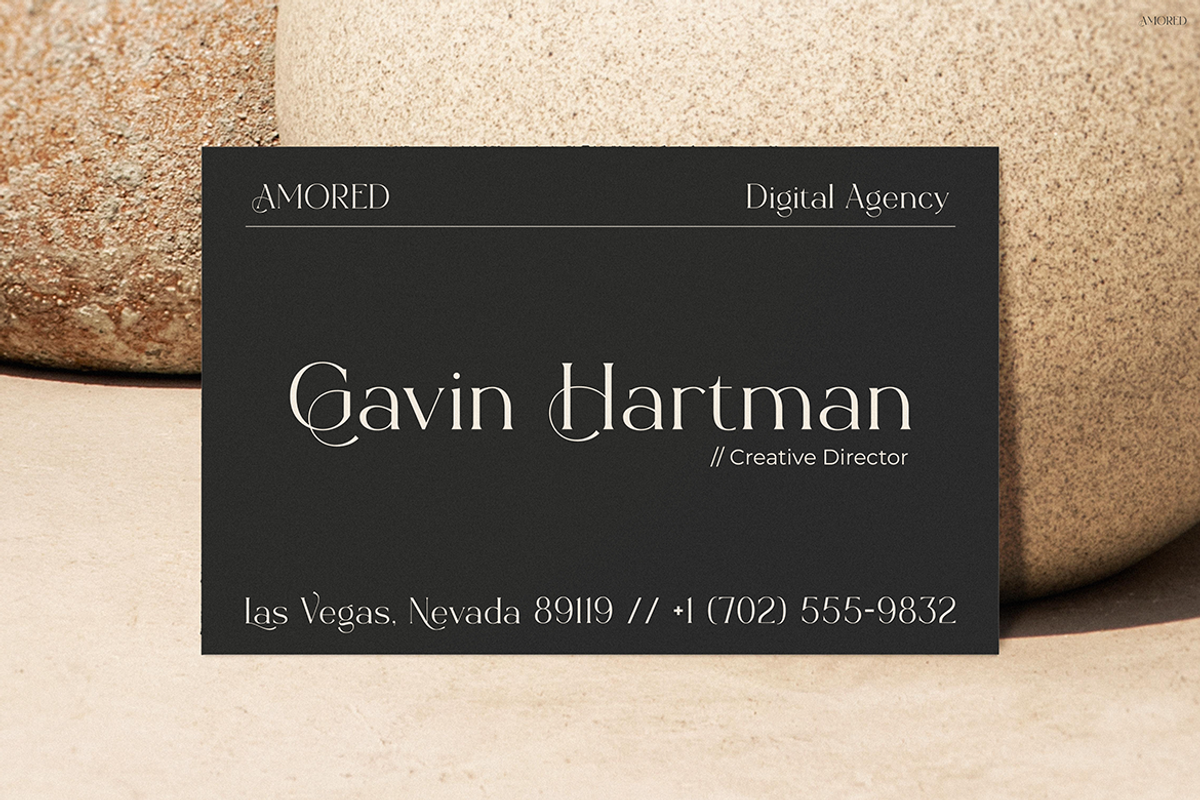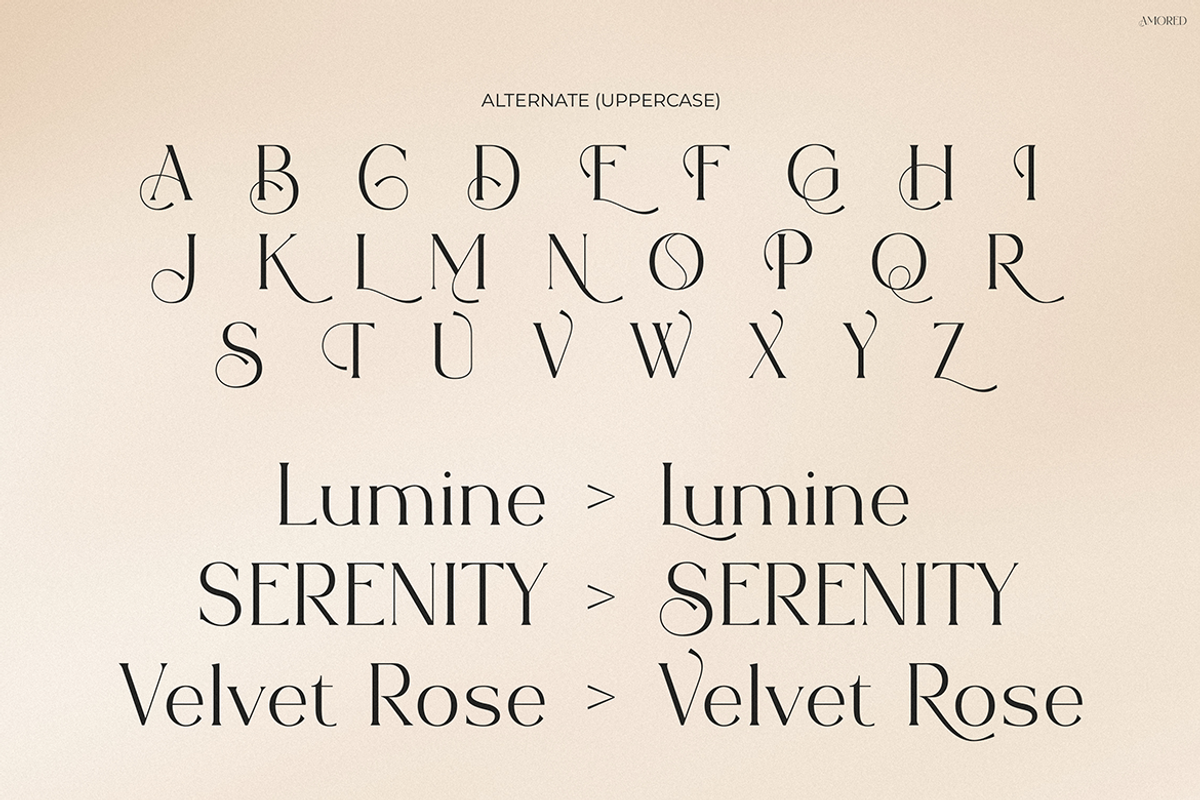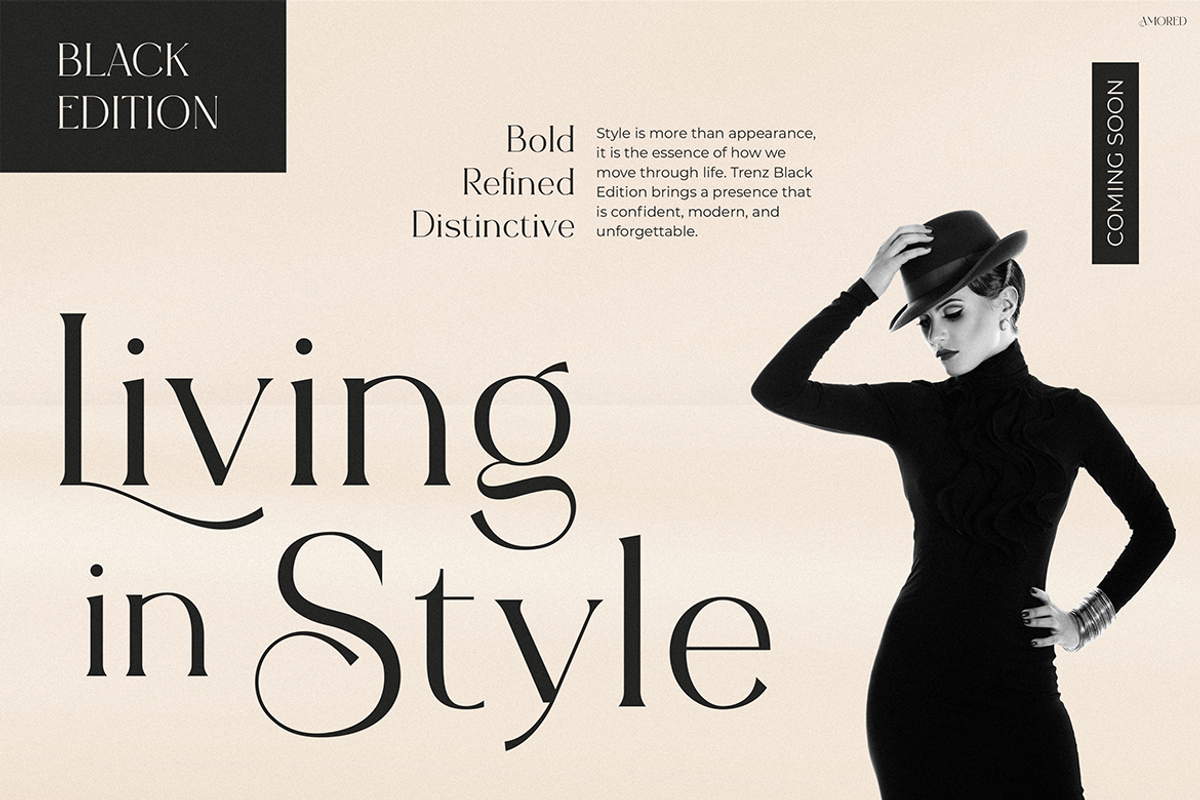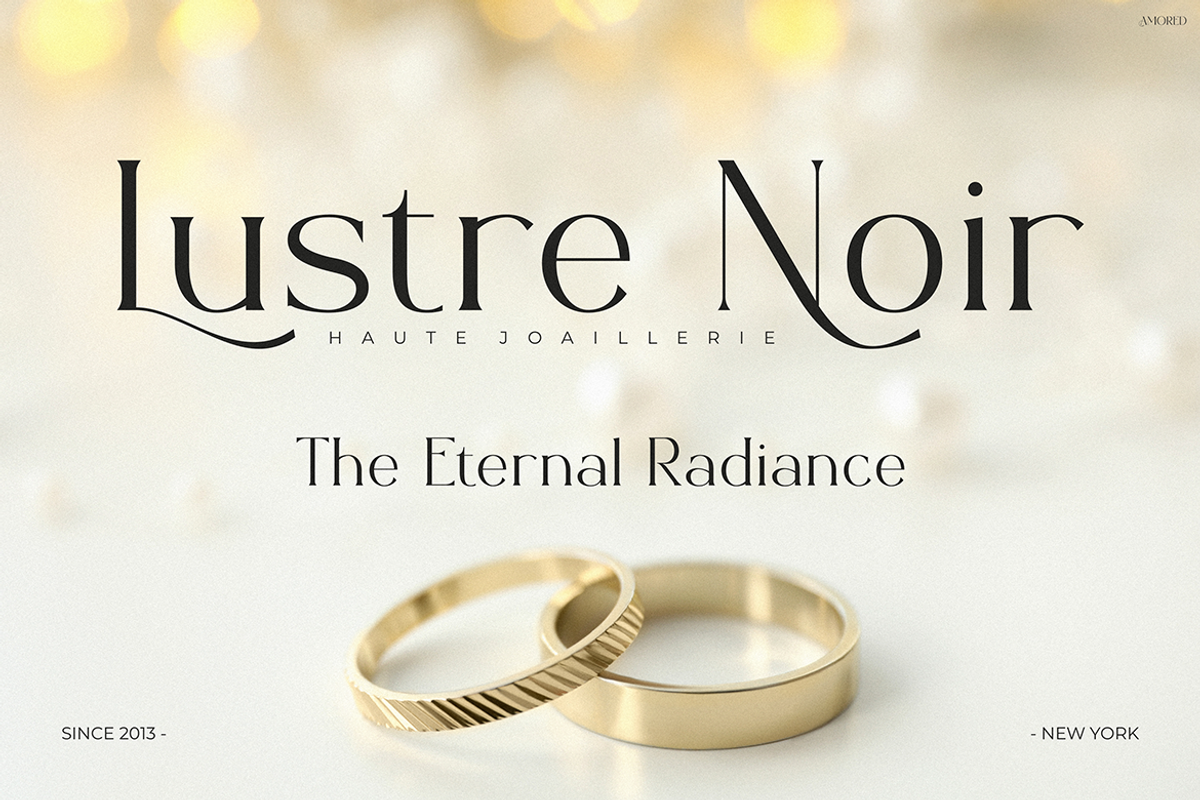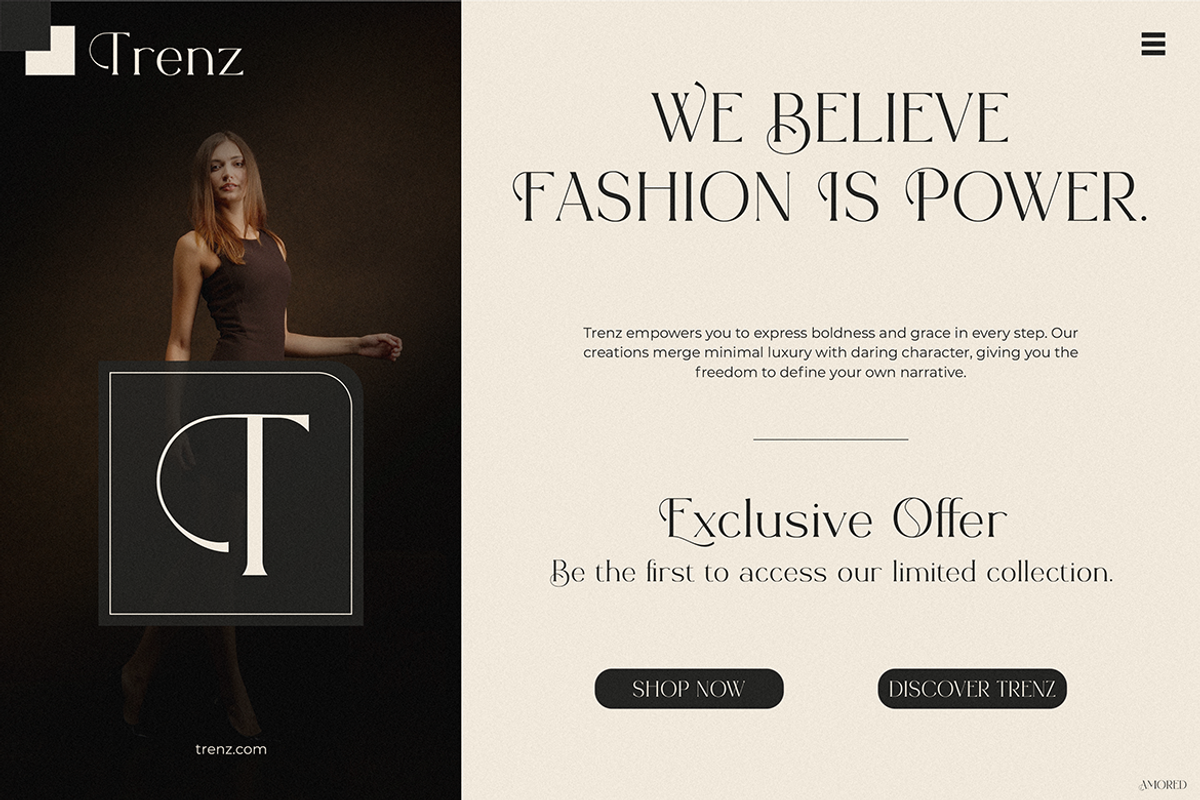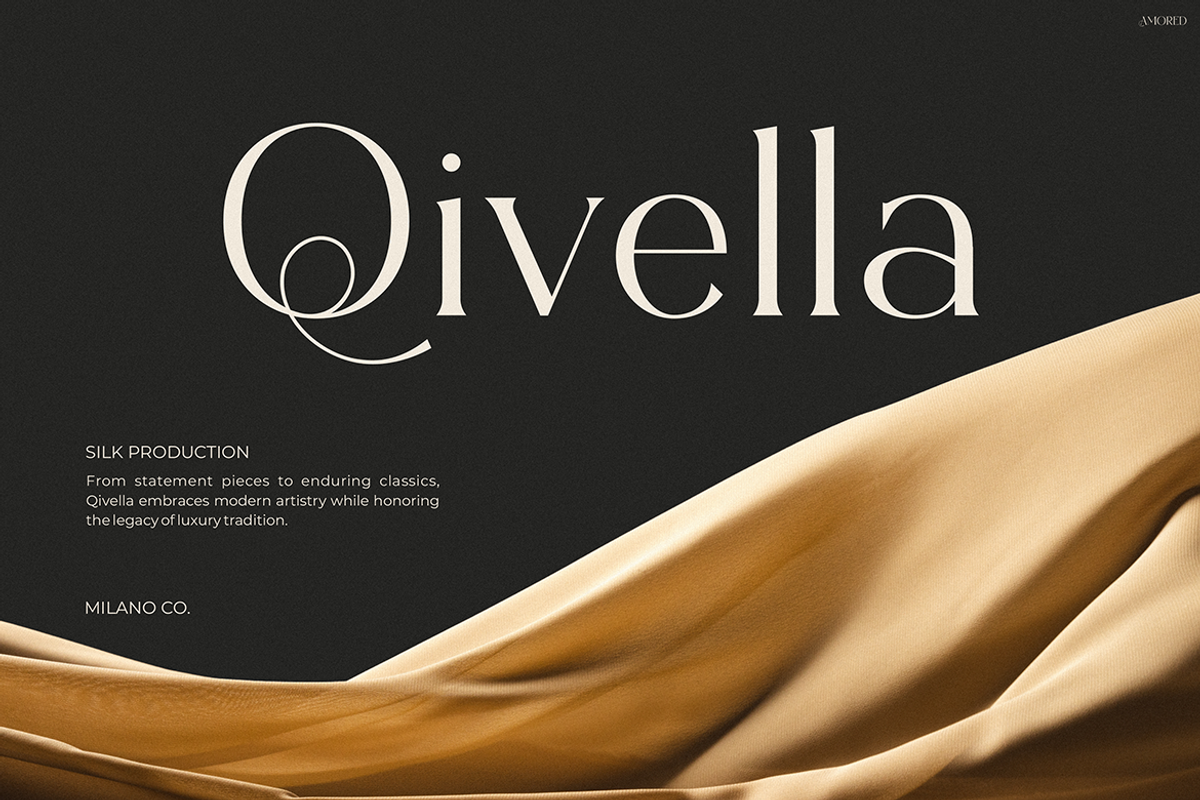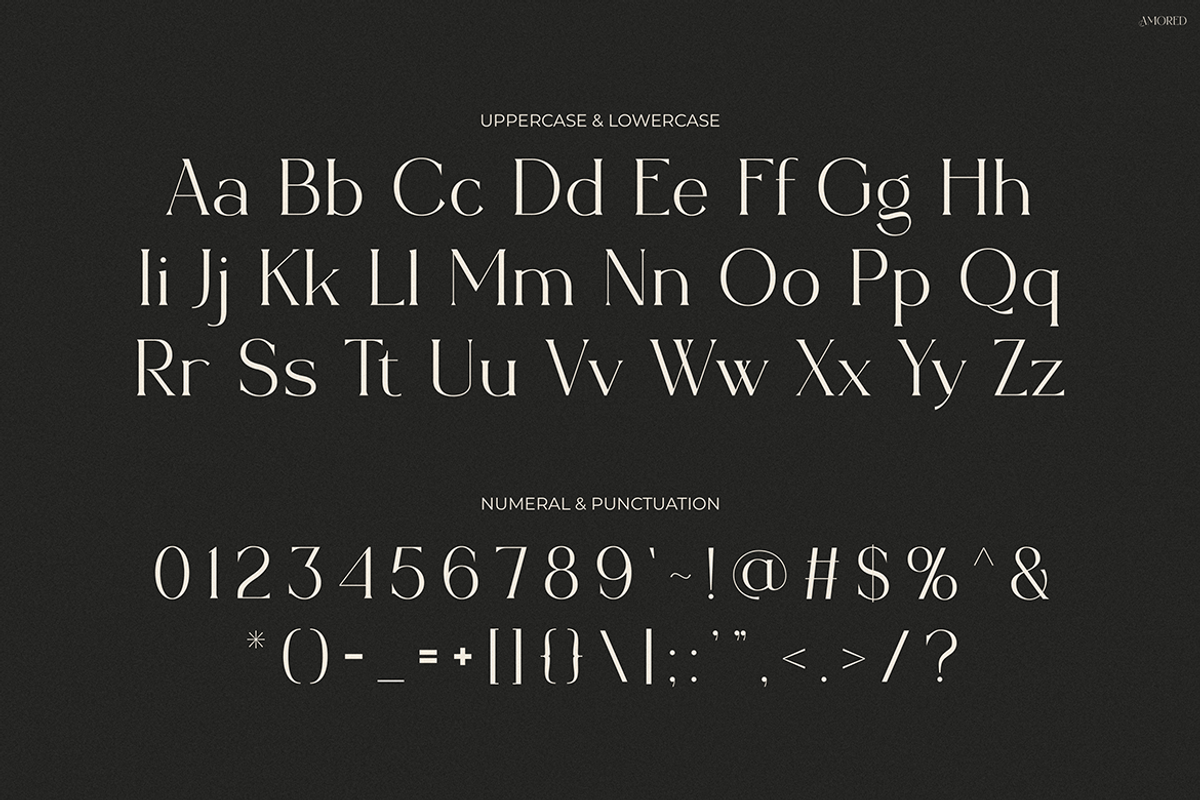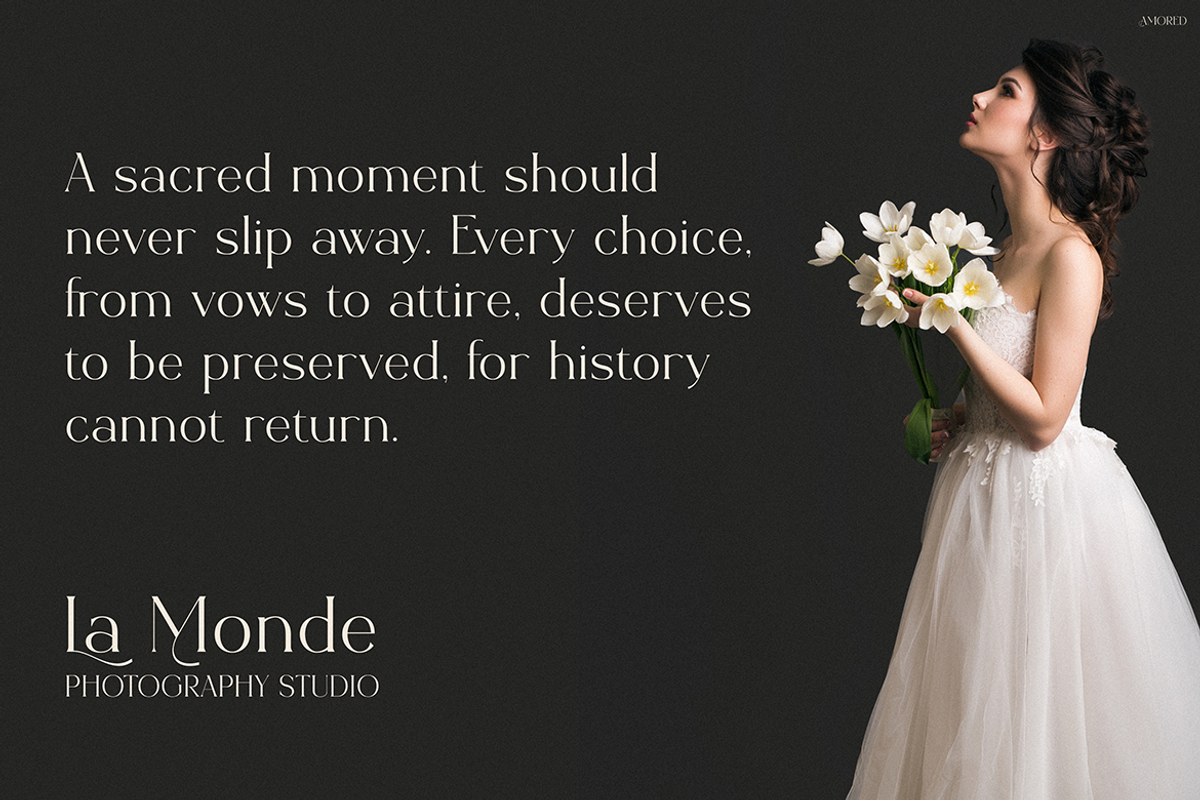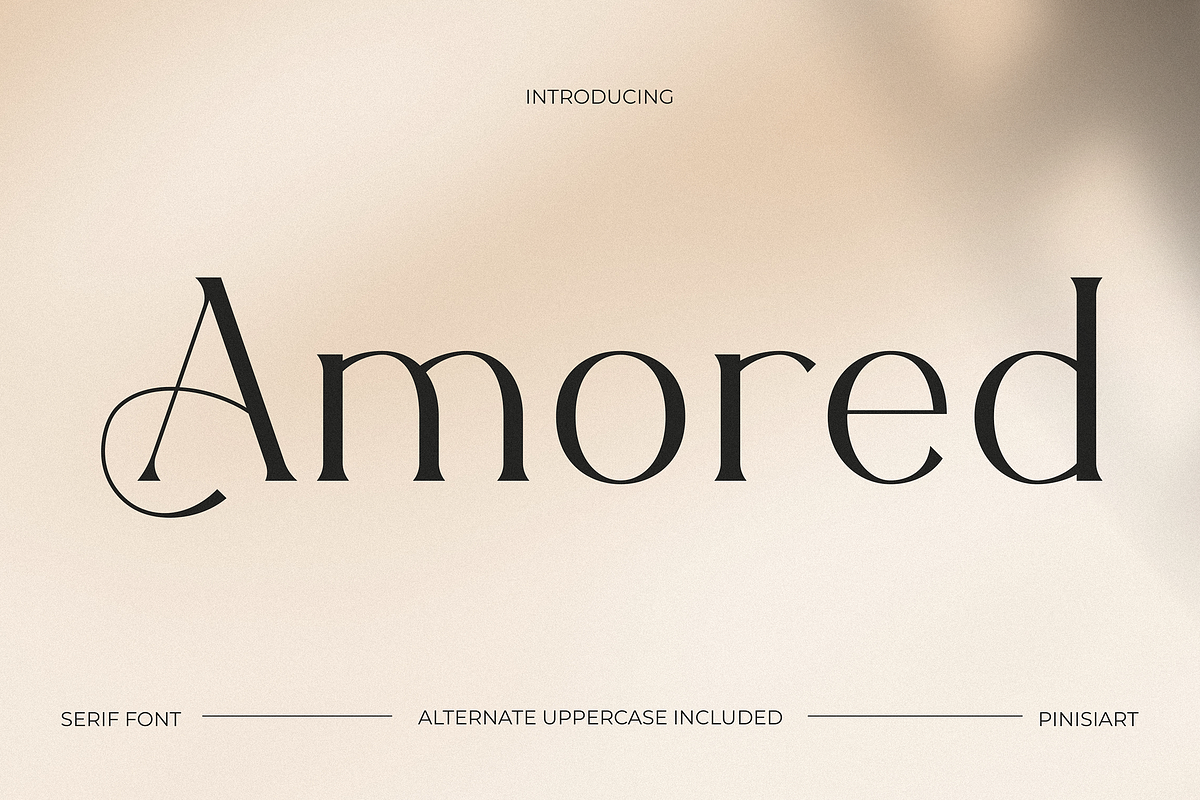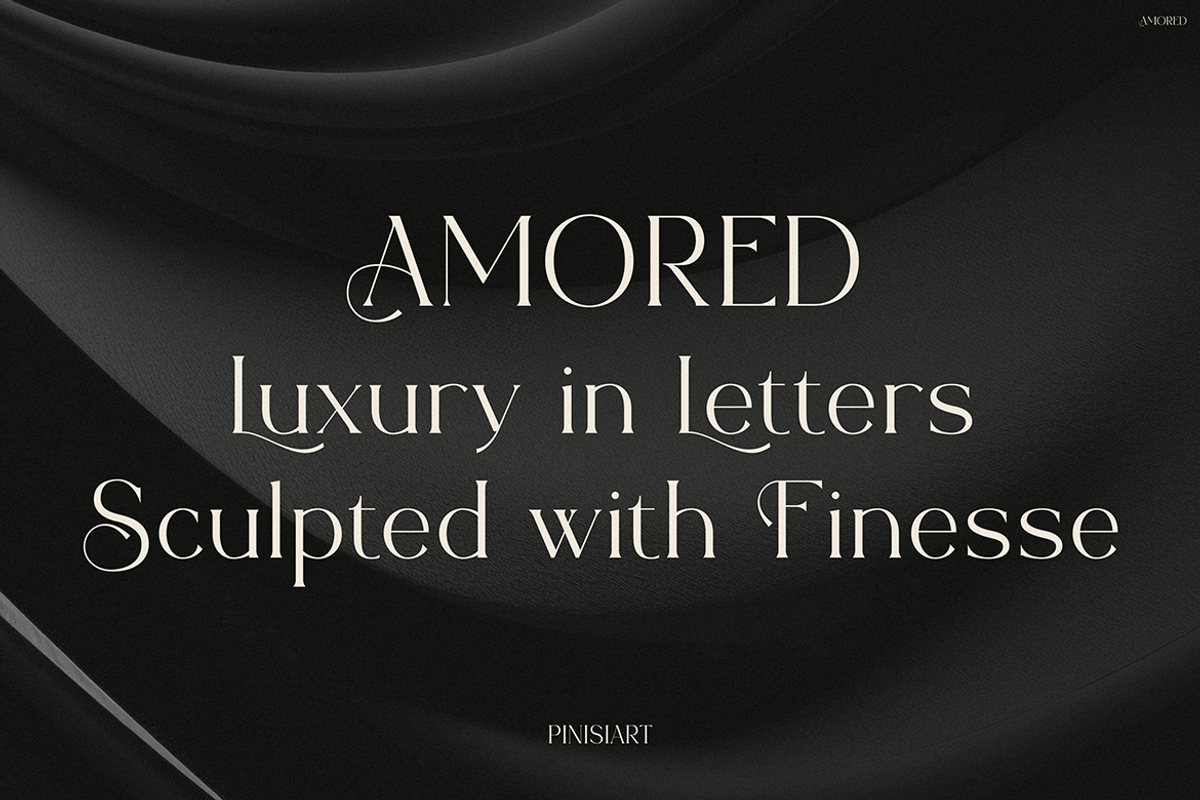
Amored
Instagram Font Amored – Timeless Luxury with Alternate Uppercase Elegance
Instagram Font Amored gives your words elegance, style, and confidence. This typeface combines refined curves with graceful strokes, so every design feels timeless yet modern. Moreover, the bold accents contrast beautifully with thin lines, which makes the font stand out instantly. The true highlight comes from the several alternate letters in the uppercase, because they allow you to experiment with different looks. As a result, you can adjust your design to feel bold, delicate, or luxurious depending on your vision.
In addition, Amored adapts easily across digital and print. You can apply it to Instagram posts, branding campaigns, fashion packaging, wedding invitations, or editorial layouts. Therefore, it works as both a creative tool and a professional design asset. For example, when you use it on social media, it transforms a simple caption into a high-end visual statement.